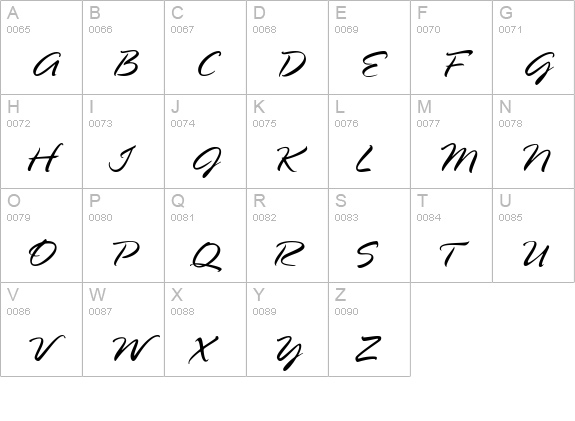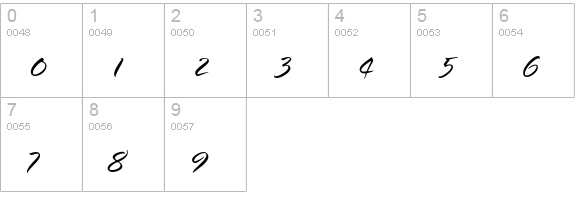
SpringLight Font Details
SpringLight is a stunningly elegant font that captures the essence of springtime with its delicate curves and graceful lines. This font exudes a sense of lightness and freshness, reminiscent of the first blossoms of the season. Its clean and modern design makes it perfect for a wide range of projects, from branding and packaging to invitations and social media graphics. One of the best things about SpringLight is that it is available for free download at FontsMarket.com. This means that you can easily access this beautiful font without any cost, allowing you to add a touch of sophistication and refinement to your projects without breaking the bank. Whether you are a professional designer or an aspiring creative, SpringLight offers you the opportunity to elevate your work and make it truly stand out. With its versatility and timeless appeal, SpringLight is a font that can be used for both personal and commercial purposes. Its legibility and readability make it suitable for various applications, ensuring that your message is conveyed clearly and effectively. Whether you are designing a logo, creating a website, or crafting a captivating poster, SpringLight will effortlessly enhance the visual impact of your project. The soft and flowing nature of SpringLight makes it a particularly great choice for projects that aim to evoke emotions of tranquility, serenity, and beauty. Its gentle curves and refined strokes bring a sense of harmony and balance, creating an inviting and captivating atmosphere. This font is a true asset for any designer looking to add a touch of elegance and sophistication to their creations. Download SpringLight for free at FontsMarket.com and experience the beauty and versatility of this remarkable font. Elevate your designs and captivate your audience with the timeless charm and grace of SpringLight. Whether you are working on a personal project or a professional endeavor, this font is sure to inspire and impress. Don't miss out on the opportunity to freely access this exceptional font and bring your creative visions to life.